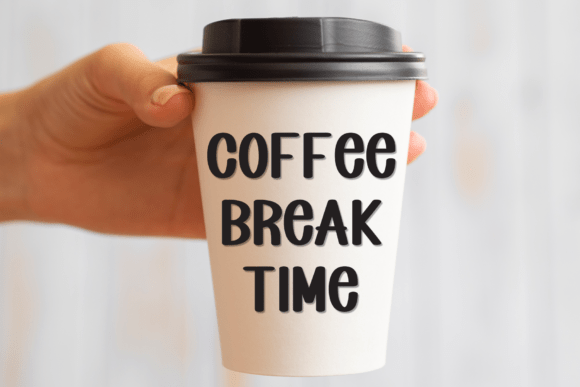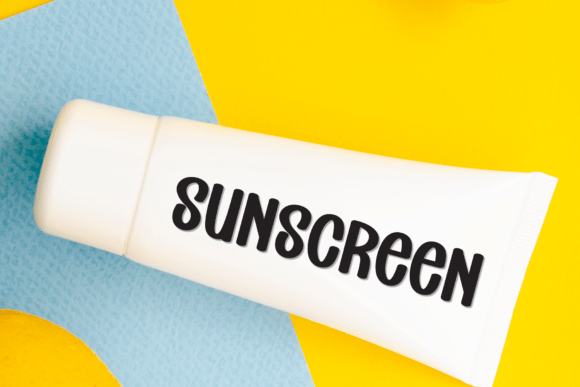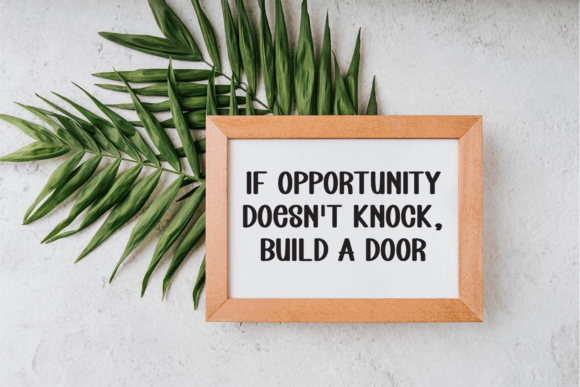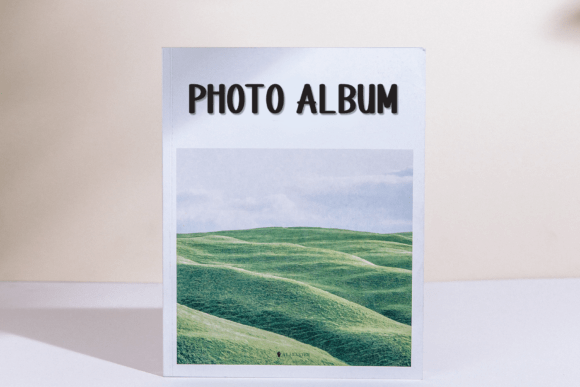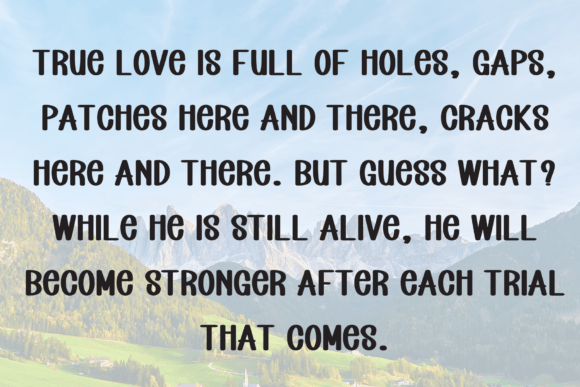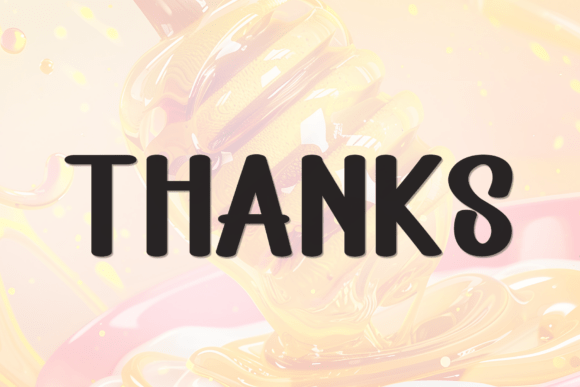
Introduction to Comic Honey Font
Do you remember that moment when you first stumbled upon the perfect font for your creative project? The one that made all your design dreams come true? For designers, finding the right font can be a game-changer. It’s the difference between a mediocre design and a truly breathtaking one. And that’s exactly what we’re about to dive into – a delightful display font that’s sure to bring joy to your designs: the Comic Honey Font.
This charming font is more than just a pretty face; it’s a design resource that adds a touch of elegance and whimsy to any project. With its free download and PUA encoding, you can easily access all its stylistic features and extras, making it a high-quality addition to your design toolkit. Whether you’re working on a wedding invitation, a heartfelt note, or a playful branding project, the Comic Honey Font is sure to bring a smile to your face and a touch of magic to your designs.
So, let’s take a closer look at what makes this font so special and how you can incorporate it into your next creative project. From its transparent background to its festive flair, we’ll explore all the reasons why the Comic Honey Font is a valuable asset for any designer looking to add a little extra sparkle to their work.
Key Features of Comic Honey Font
- High-quality, unique design ideal for creative projects
- Transparent background allows for seamless integration with graphics
- Includes a wide range of characters, including letters, numbers, and symbols
- Designed with a playful, comic-inspired aesthetic, perfect for children’s books, cartoons, and more
Honest Review: Comic Honey Font
I recently had the chance to dive into the Comic Honey Font and I must say, it’s a fantastic addition to any designer’s arsenal. This high-quality font is perfect for creative projects that require a touch of whimsy and playfulness.
Here are some things that work well with the Comic Honey Font:
- Its unique and quirky style adds a lot of character to any design.
- The font is highly legible, making it perfect for body text and titles alike.
- The font only comes in a limited number of weights and styles, which may not be ideal for complex designs.
- There is no transparent background option, which may limit its use in certain design contexts.
Overall, I’m really impressed with the Comic Honey Font and I think it’s a great resource for designers. It’s perfect for adding a bit of personality to your designs, and the free download option makes it a great value. Just be aware of its limitations, and you’ll be golden.
Comic Honey Font
The Comic Honey Font is a high-quality, free download resource ideal for creative projects requiring a unique and eye-catching design. This font offers a transparent background, making it versatile for various applications.
Tips for Getting the Most Out of Comic Honey Font
1. Experiment with different font sizes and styles to achieve the desired effect.
2. Combine the Comic Honey Font with other design elements for a unique look.
Common Use Cases for Comic Honey Font
1. Social media graphics and posts.
2. Blog posts and articles.
3. Infographics and presentations.
Alternatives to Comic Honey Font
Comic Sans MS is a popular sans-serif font that is often used in creative projects due to its friendly and approachable feel. It is free to download and can be used in a variety of design contexts, from logos to graphics. When to use: for projects that require a casual and informal tone, such as social media graphics or children’s educational materials. How it compares: while Comic Sans MS has a similar feel to Comic Honey Font, it lacks the unique, handwritten quality of the latter.